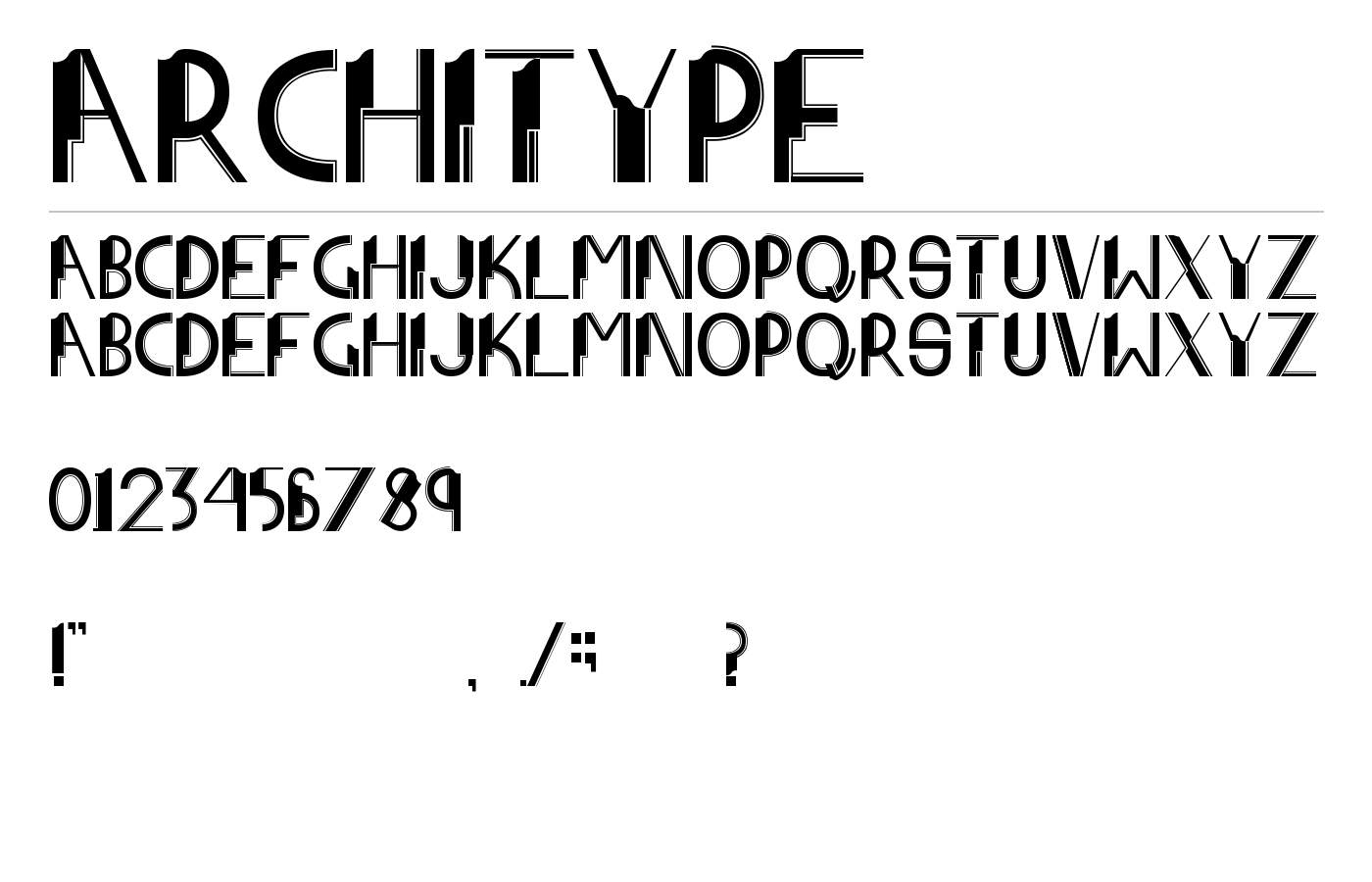
Architype is a distinctive sans serif font with an art deco-inspired design that combines elegant geometric forms with decorative, layered strokes. Its tall, narrow letterforms with high contrast and sharp angles create a sophisticated, vintage-modern feel, making it ideal for stylish headlines, logos, and branding that aim to evoke a sense of luxury and timeless flair. This font works best where eye-catching, ornamental typography is desired, adding a unique, architectural touch to creative projects.
Architype Font
About Architype Font
| Font family | Architype Font |
| Designer | Shannon Frye |